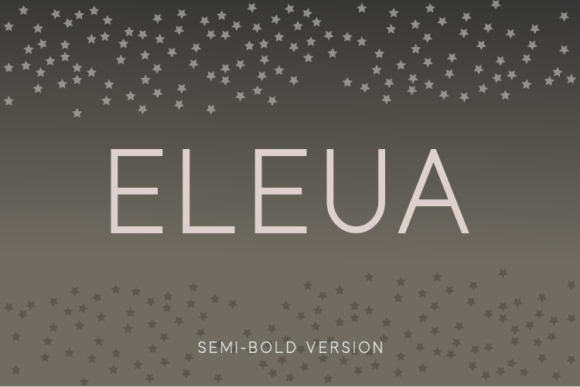
Discover the Perfect Balance of Simplicity and Style with the Eleua Semi-Bold Font
As designers, we’ve all been there – staring at a blank canvas, trying to find the perfect font to bring our vision to life. And sometimes, it’s not just about finding a font that looks good, but one that truly resonates with the message we’re trying to convey. For me, that moment came when I stumbled upon the Eleua Semi-Bold Font – a simple, yet elegant sans serif font that has since become a staple in my design arsenal.
With its clean and beautiful arrangement of letters, the Eleua Semi-Bold Font is perfect for designers who want to add a touch of sophistication to their designs without overpowering the content. Whether you’re working on a formal project or something more casual, this versatile font family has got you covered – available in 10 weights, each one carefully crafted to suit the needs of your design.
Key Features of Eleua Semi-Bold Font
- Font Family: Eleua Semi-Bold
- Unique Characteristics: The Eleua Semi-Bold font features a unique blend of modern and traditional design elements, making it perfect for creating a distinctive visual identity.
- Font Style: Semi-bold, making it ideal for headings, titles, and other text elements where a strong, yet not overpowering, font style is required.
Eleua Semi-Bold Font Review
Overall, I think the Eleua Semi-Bold Font is a great choice for designers who want to add a touch of sophistication to their projects. Here are some things that really stand out to me:
- ✨ Elegant and refined feel: The Eleua Semi-Bold Font has a beautiful, classic look that’s perfect for luxury brands or high-end designs.
- ✨ Good legibility: The font is clear and easy to read, even at smaller font sizes.
- ✨ Versatile: The semi-bold weight makes it suitable for a wide range of applications, from body text to headings.
- ⚠️ Limited character set: The font only includes a basic character set, which may not be suitable for languages that require a lot of special characters.
- ⚠️ Not ideal for display text: While the font looks great for body text, it may not be the best choice for display text or titles, where a bolder font is often preferred.
Overall, I think the Eleua Semi-Bold Font is a solid choice for designers who want a clean, elegant look. While it may have some limitations, it’s a great option for projects where you want to add a touch of sophistication without going over the top.
Tips for Getting the Most Out of Eleua Semi-Bold
For best results, use Eleua Semi-Bold in combination with other fonts to create a balanced and visually appealing design. Experiment with different font sizes, colors, and styles to create a unique and eye-catching look.
Eleua Semi-Bold is ideal for use in headings, titles, and other text elements where a clear and readable font is needed. It’s also great for use in digital designs, such as websites, social media graphics, and email marketing campaigns.
Alternatives to Eleua Semi-Bold Font
1. Open Sans Semi Bold
Open Sans Semi Bold is a clean and modern sans-serif font. It’s ideal for use in digital products, apps, and websites where readability is crucial. When to use: Body text, headings, and titles. Comparison: Open Sans Semi Bold has a more rounded feel compared to Eleua Semi-Bold, which is more geometric. It’s also slightly more condensed.
2. Lato Semi Bold
Lato Semi Bold is a stylish and elegant sans-serif font. It’s perfect for use in branding, logos, and titles where a touch of sophistication is needed. When to use: Headings, titles, and branding materials. Comparison: Lato Semi Bold has a more refined feel compared to Eleua Semi-Bold, which is more casual. It’s also slightly more ornate.
What is the recommended font size for using Eleua Semi-Bold?
The recommended font size for Eleua Semi-Bold varies depending on the application and intended use. However, as a general guideline, use font sizes between 12 and 18 points for body text, and 24 points or larger for headings and titles.